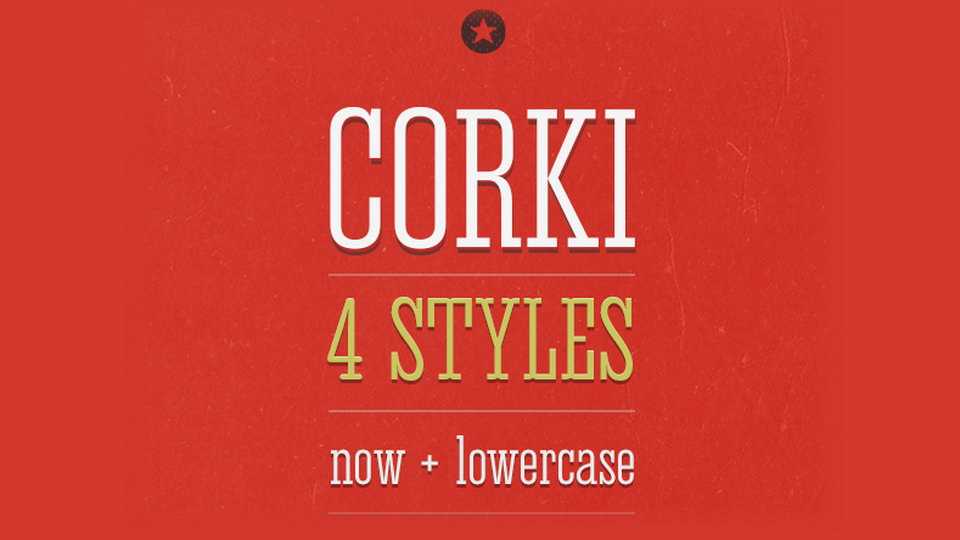
Download Corki font family, a condensed slab serif typeface in four styles, suitable mostly for headlines and short texts, also looks great for posters, banners, social media and other creative designs.
Designer: Typedepot